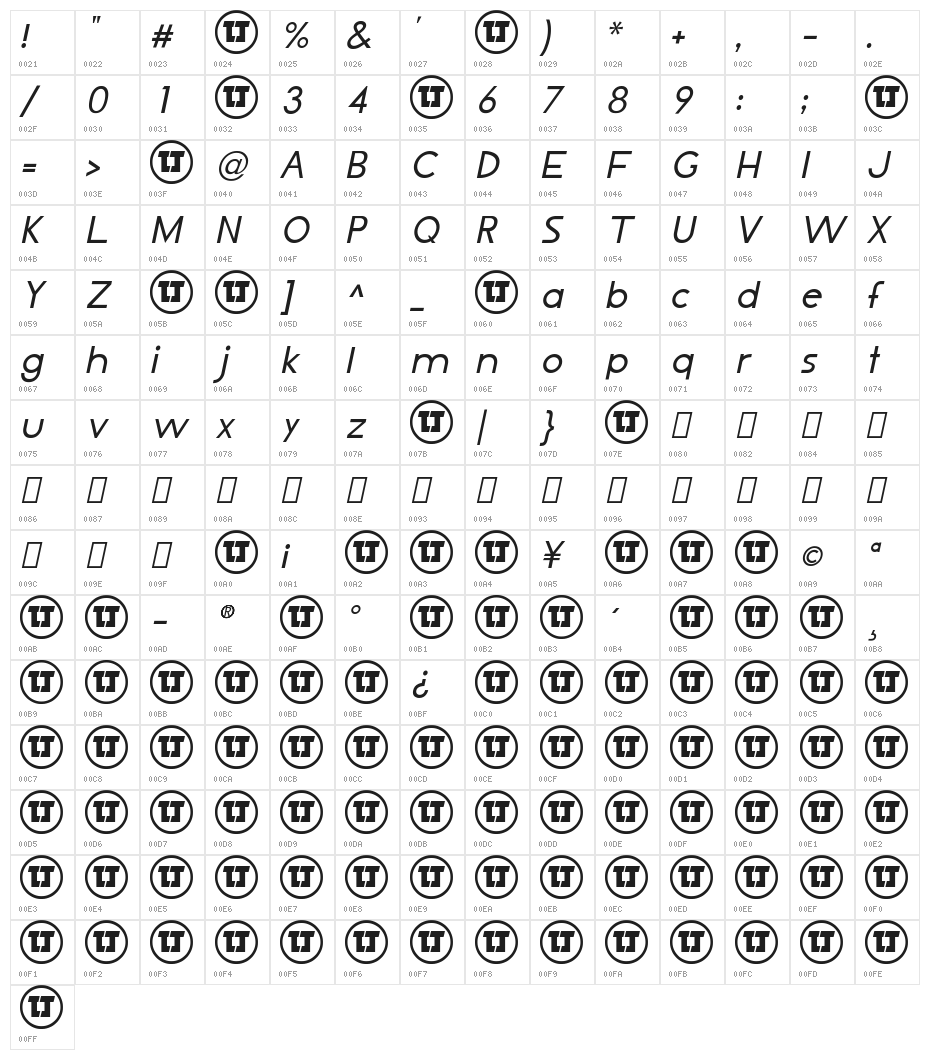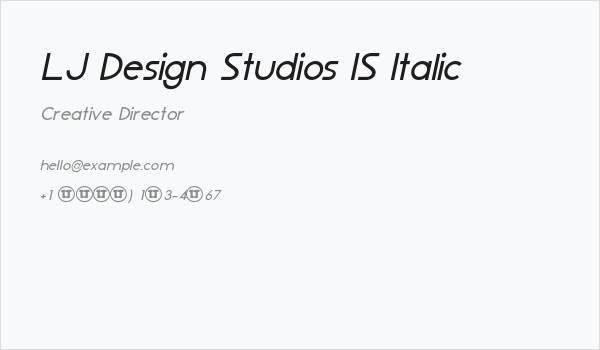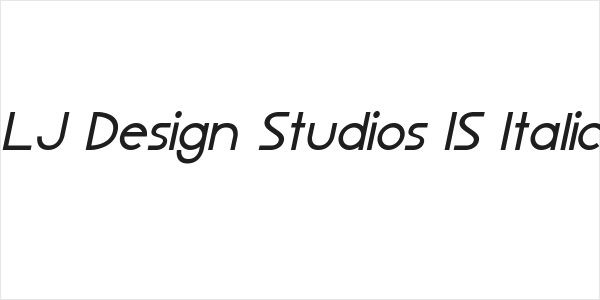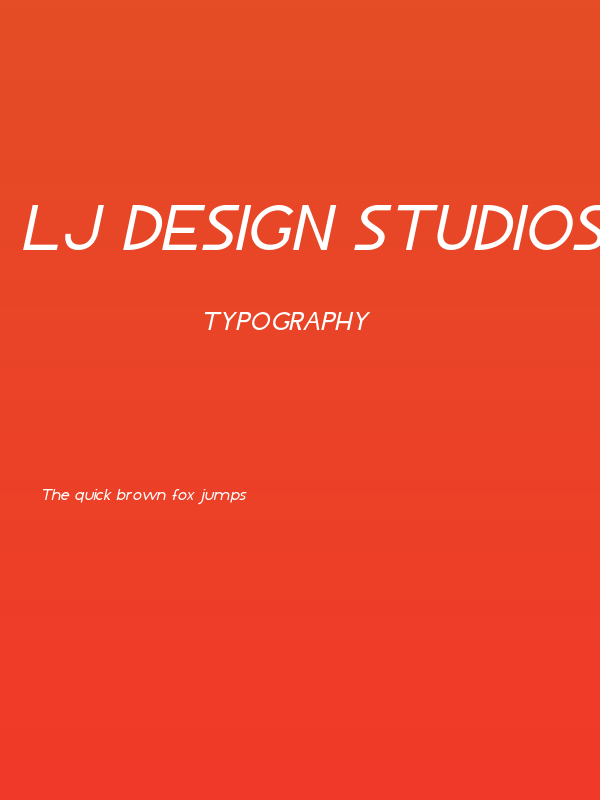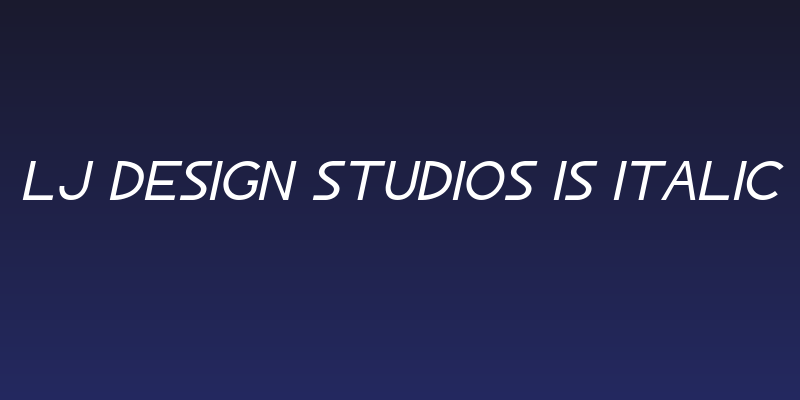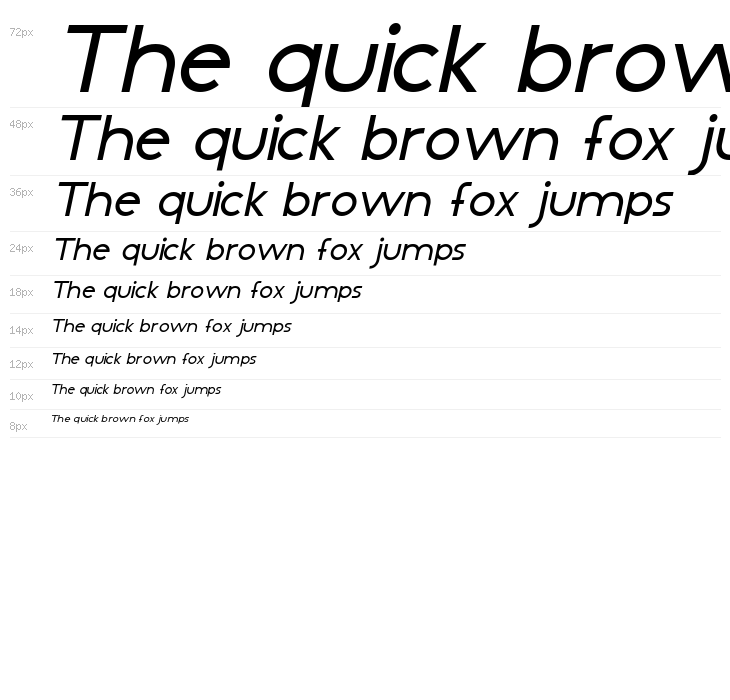
LJ Design Studios IS Italic Font
LJ Design Studios IS Italic Description
This font features a sleek, modern design with a slight italic slant, giving it a dynamic and forward-moving appearance. The characters are clean and sans-serif, providing a contemporary look that is both professional and approachable. The uppercase and lowercase letters maintain a consistent style, with smooth curves and straight lines that enhance readability. The numerals are distinct and well-proportioned, ensuring clarity in numerical data. Special characters are included, offering versatility for various design needs. Overall, this font is ideal for projects that require a modern and stylish touch.
| Proposed Projects | Ideal for branding, advertising, digital content, and modern web design. |